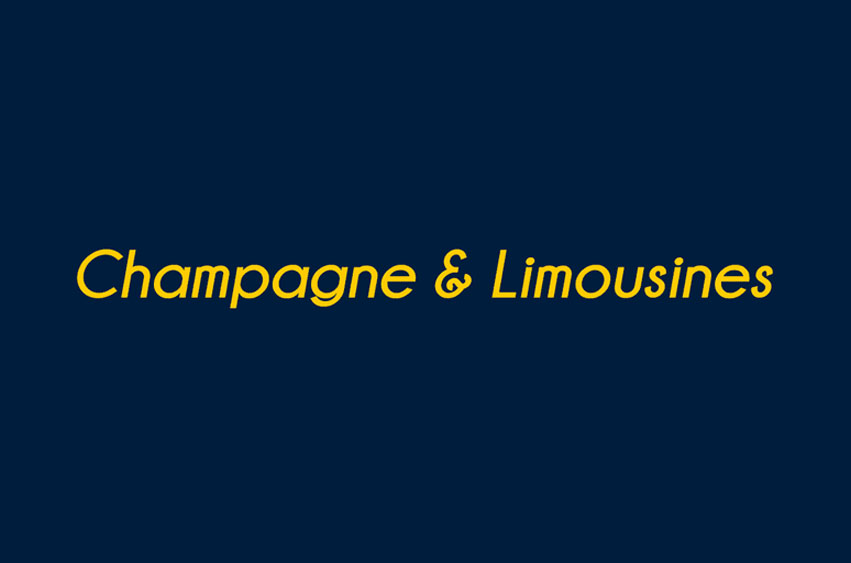
Champagne & Limousines Font
Champagne & Limousines Font designed by Lauren Thompson is a super elegant sans serif category of font that is best for personal use, and it is free for download. It shows Changes made to Champagne & Limousines as this version includes uppercase letters and some other special characters for individual use.
Made correction to Greek epsilon in Bold and Bold Italic weights. You can use this font for personal purpose.